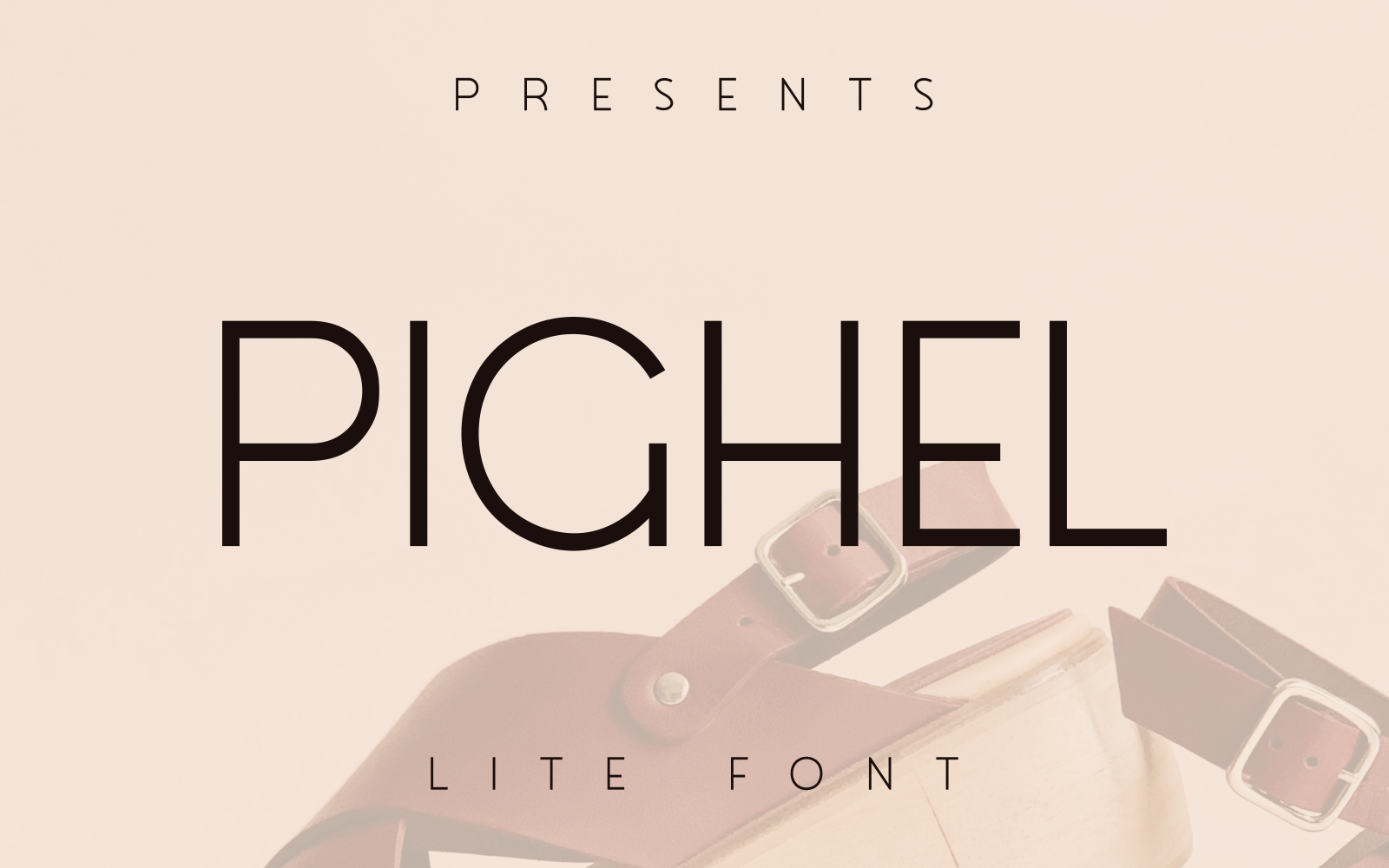
Pighel – Lightweight & Elegant Font for Product Details
Pighel is a sleek, lightweight font perfect for writing on products, such as sandal tags or footnotes. Its extra-spaced design makes it visually appealing and easy to read, offering a modern touch with a minimalist feel. Ideal for subtle, stylish branding and product details.